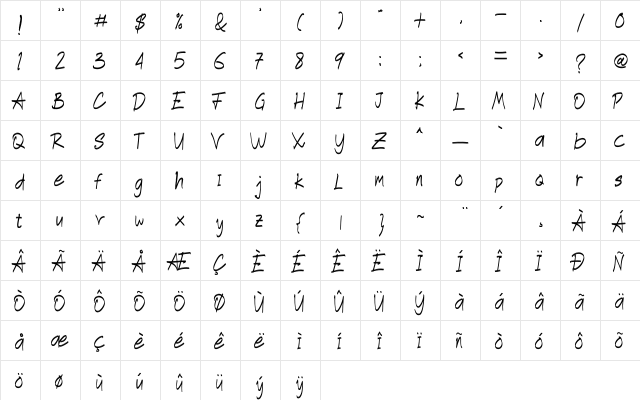
Blasting Brush Regular
| Foundry | Uloel Design |
| Designer | Ulul Fahmi |
Design Context for Blasting Brush Typeface
Blasting Brush brings a calligraphic fluidity to the page — its connecting strokes and expressive curves give it an unmistakably human quality.